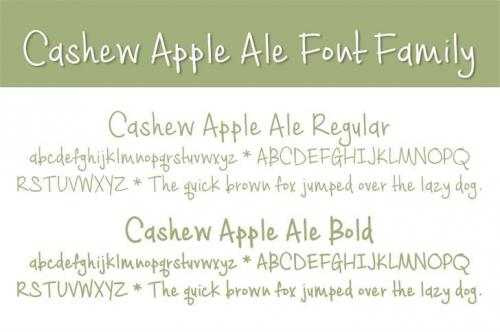
Cashew Apple Ale Font
Cashew Apple Ale font
Cashew Apple Ale comes in two weights- regular and bold. It’s a casual, handwritten font. Pretty, but legible! Great for both headlines or content.